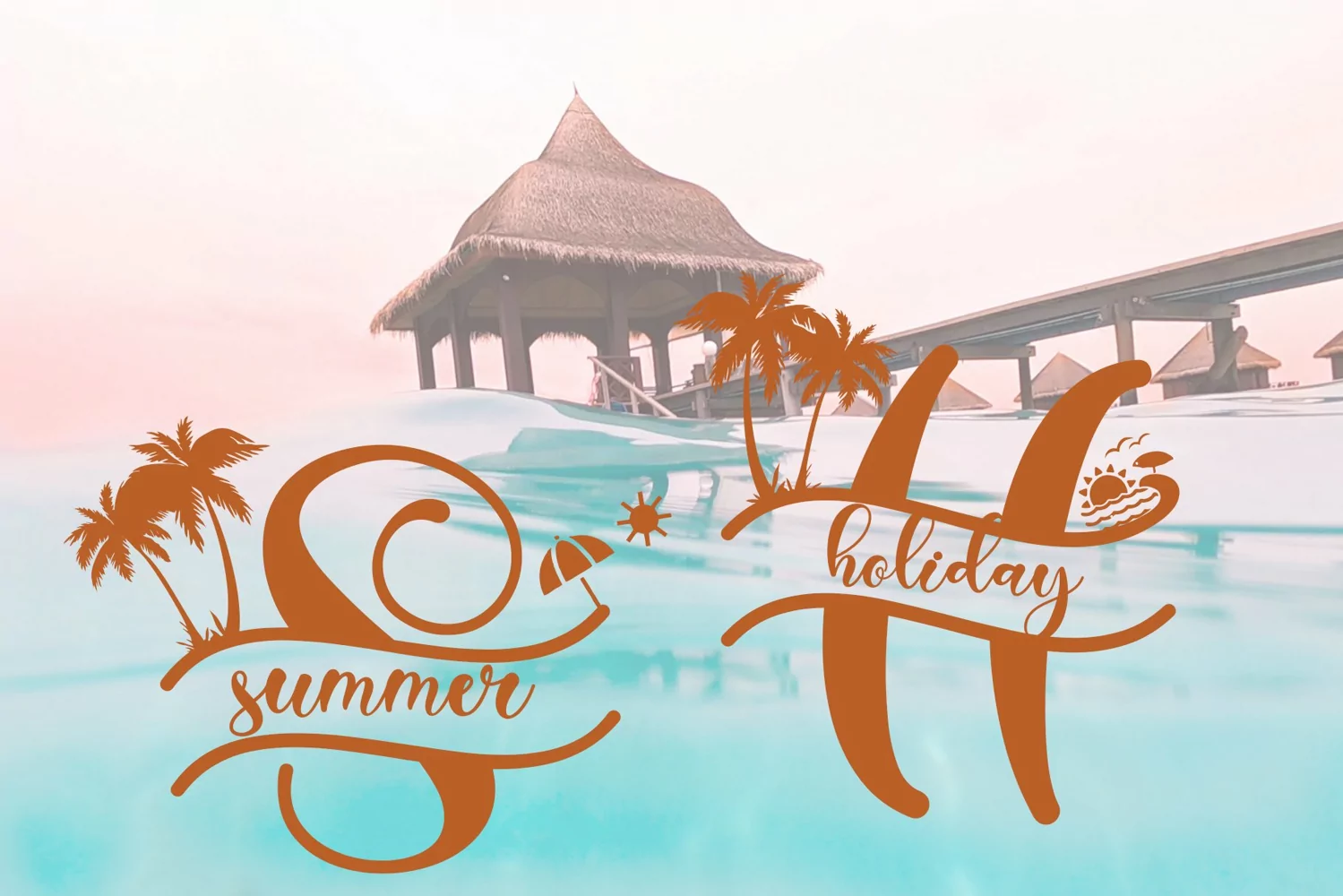
Summer Monogram is a super handwritten font that will make your work stand out through its elegant and curvy lines. It is perfect for product packaging, branding project, magazine covers, social media, wedding, or just used to express words above the background.